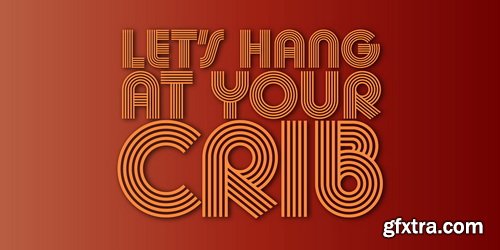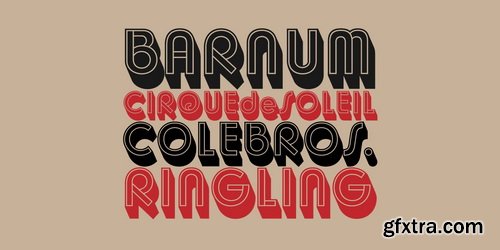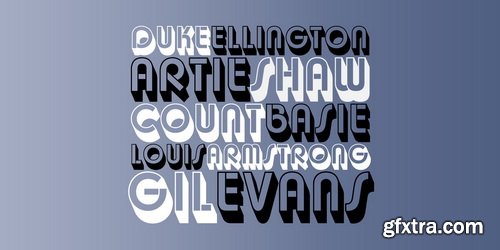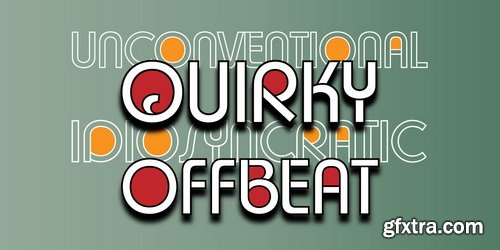
BluHead Studio LLC is pleased to announce the release of 9 fonts from the Churchward Design family designed by New Zealand typeface designer Joseph Churchward. BluHead Studio is in the process of digitizing many of the fonts in Churchward’s extensive library of exciting and unique designs and will be releasing them in OpenType format on a regular basis. Churchward Design Lines is the latest addition to the Churchward Design family. The family now consists of nine unique fonts, all based on a classic, straightforward geometric glyph forms, with the addition of Churchward’s quirky details.